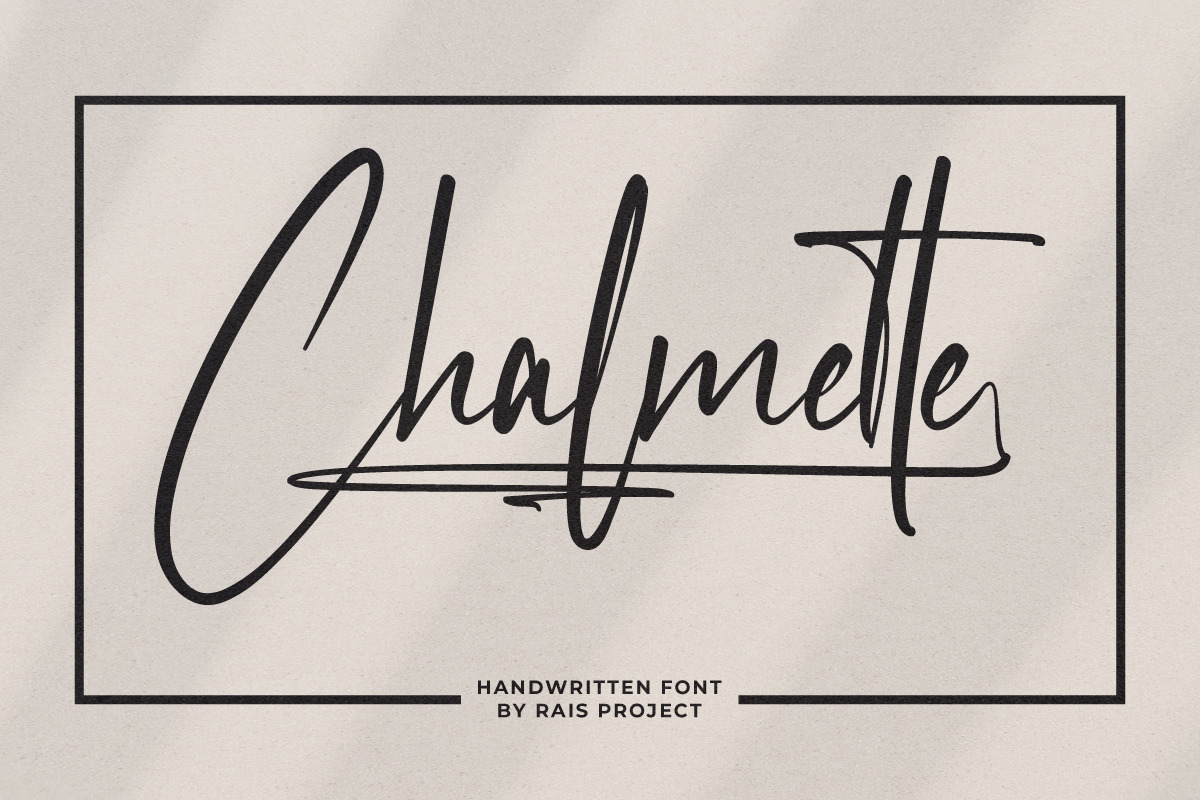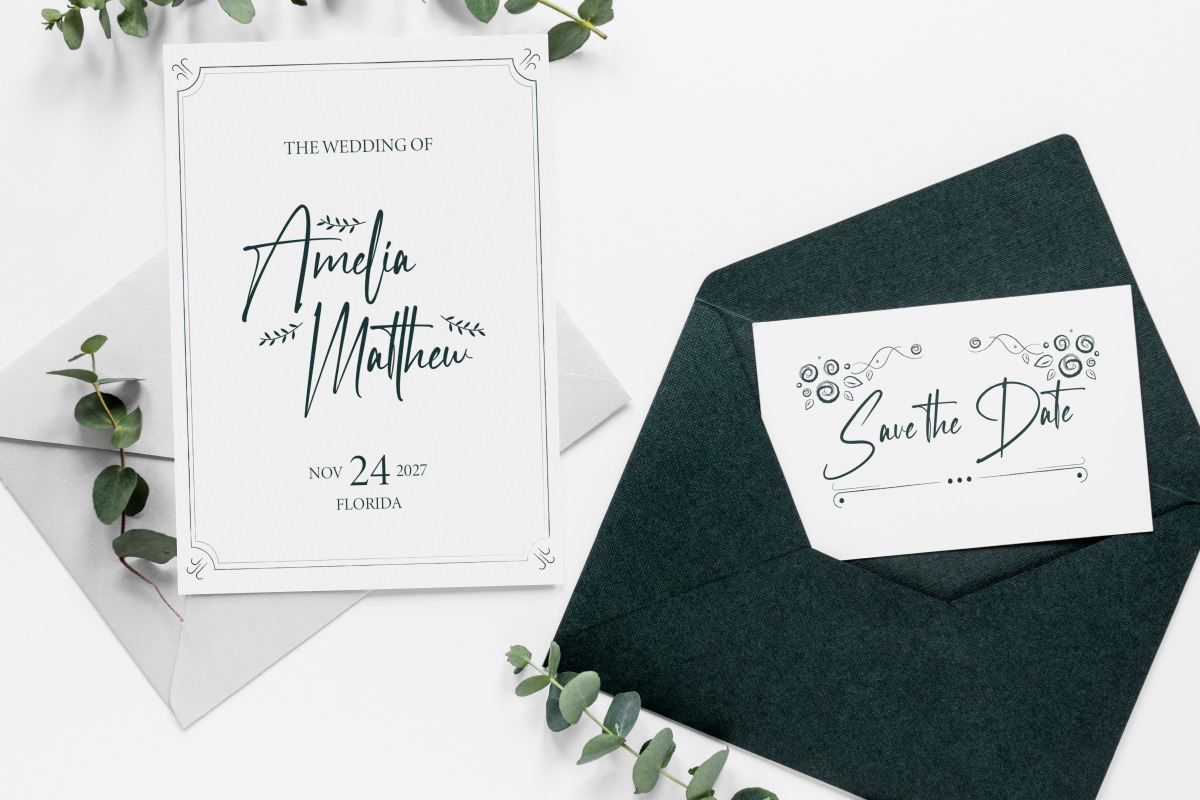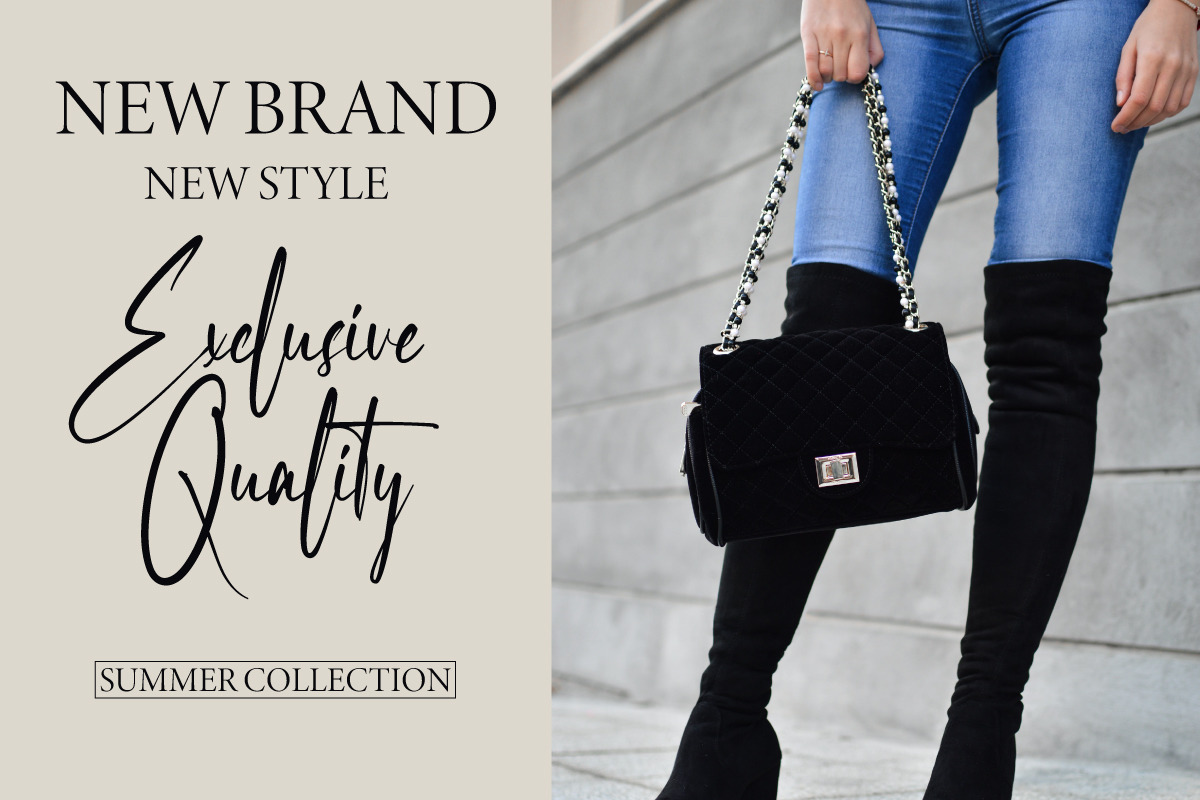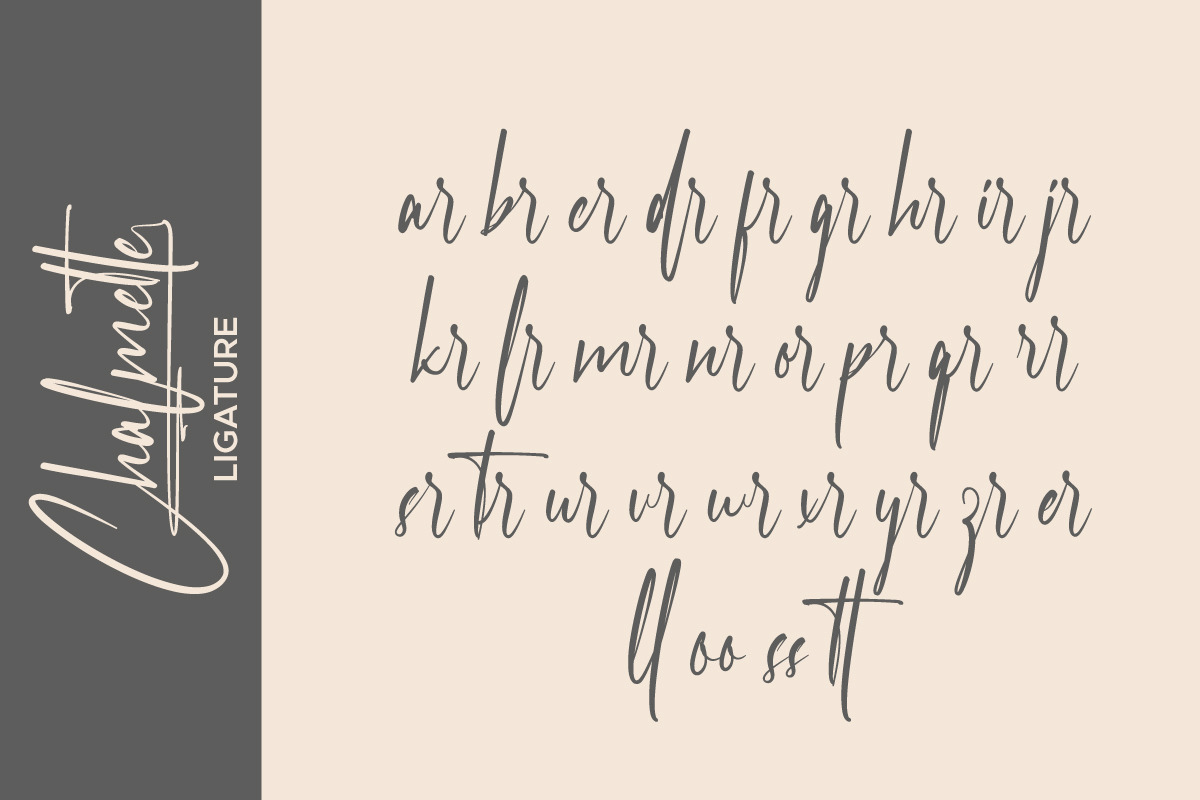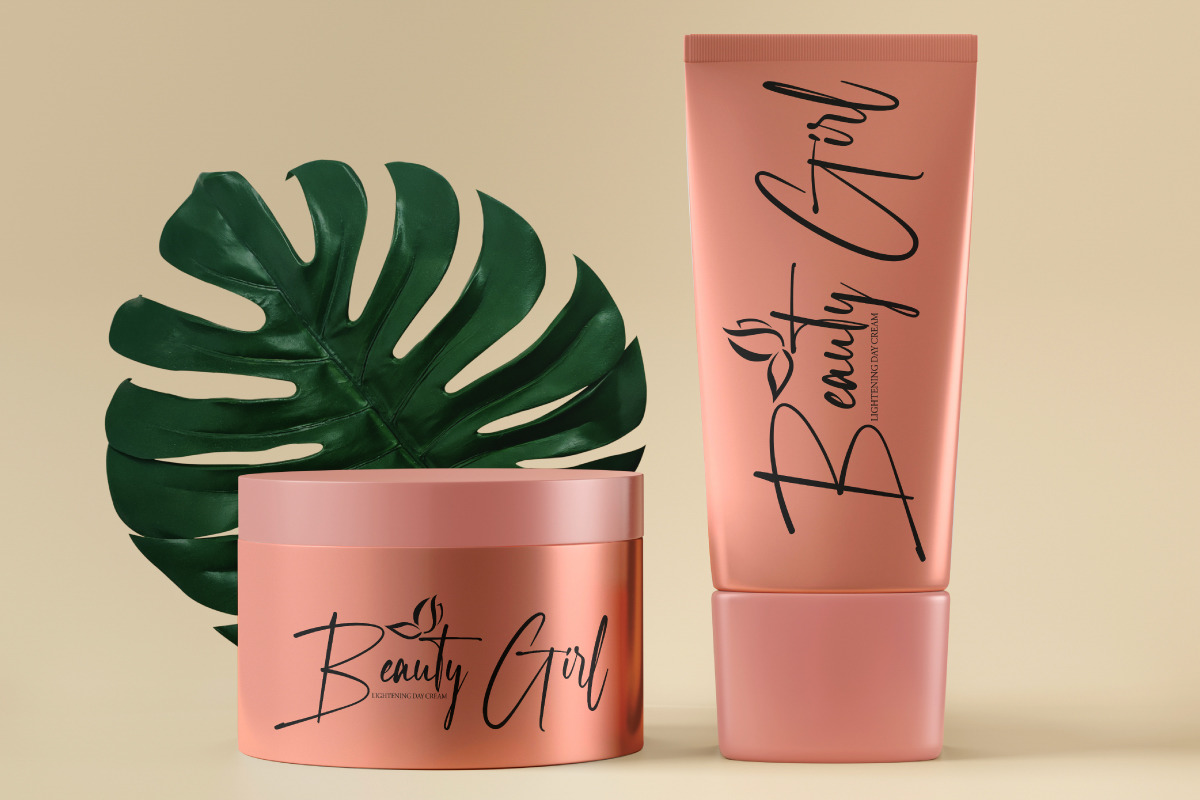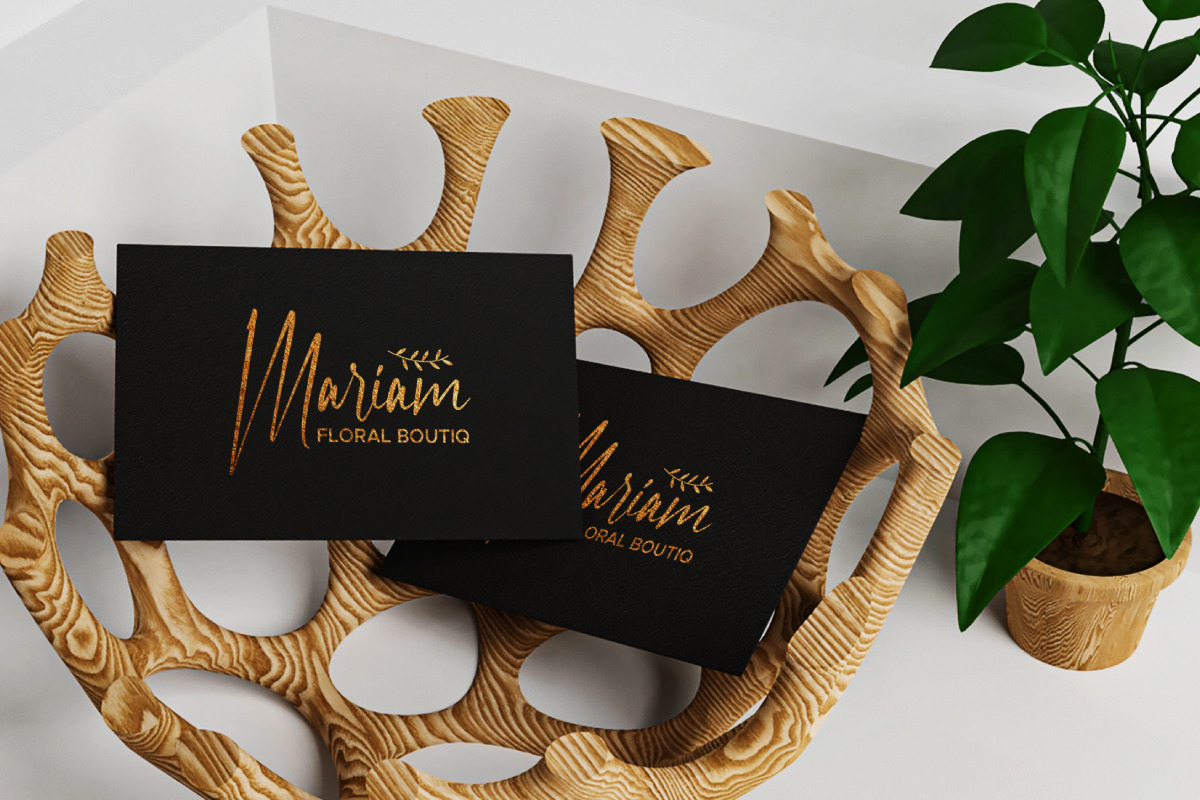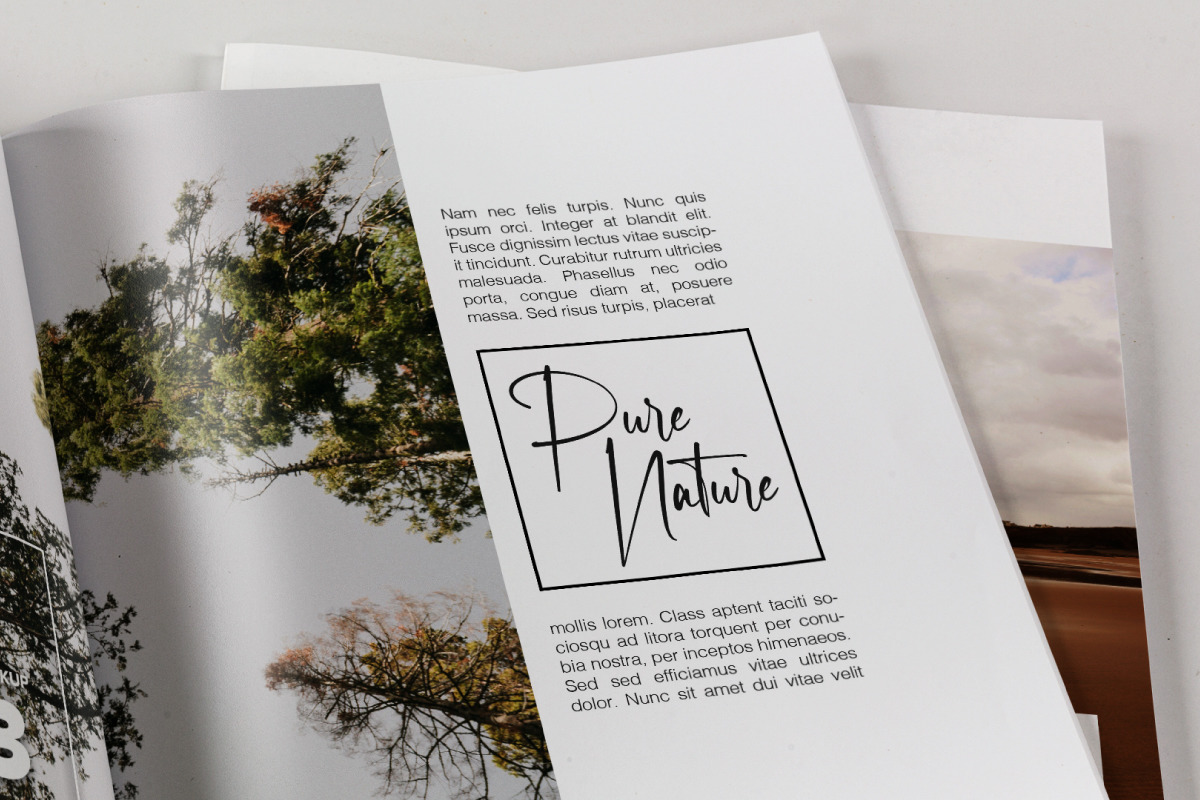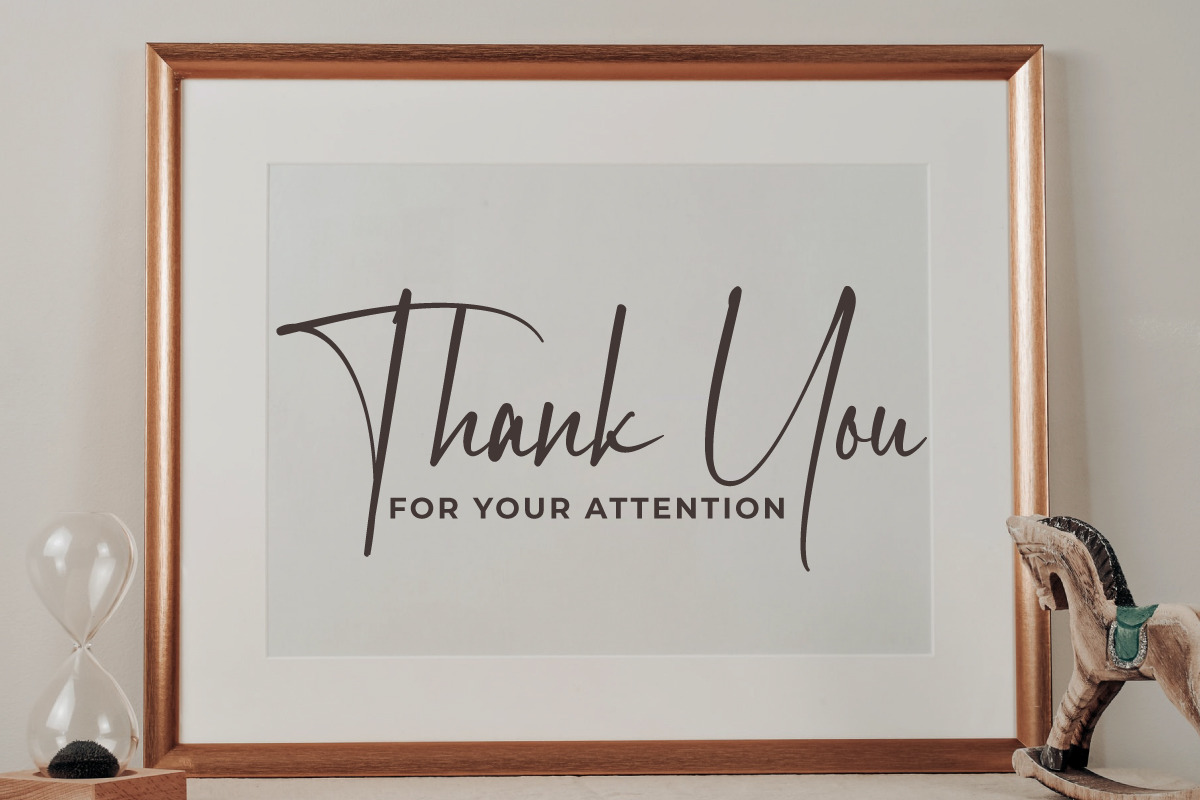
Chalmette Signature Font
Chalmette is a signature script font in stylish calligraphy style. Great for any of your special projects including : weddings, promotion, events, branding, advertising, magazine, shopping, signage, invitation, stationery, social media posts, product packaging, product designs, label, photography, watermark or and any projects that need handwriting style.
Chalmette Font includes full set of gorgeous uppercase and lowercase letters, numerals, a large range of punctuation and ligatures. We made Chalmette looks simple yet stunning handwritten looks, giving realistic hand-lettered style.